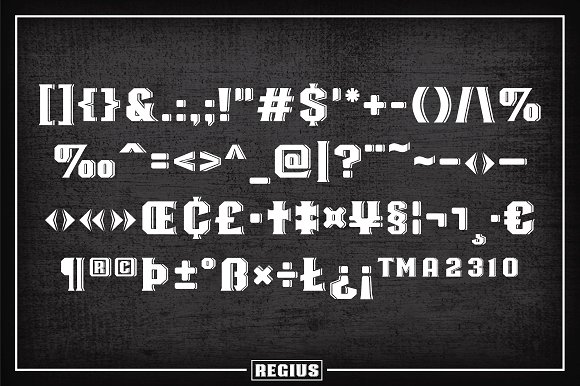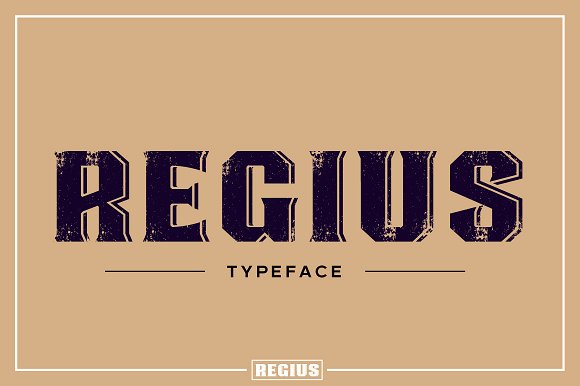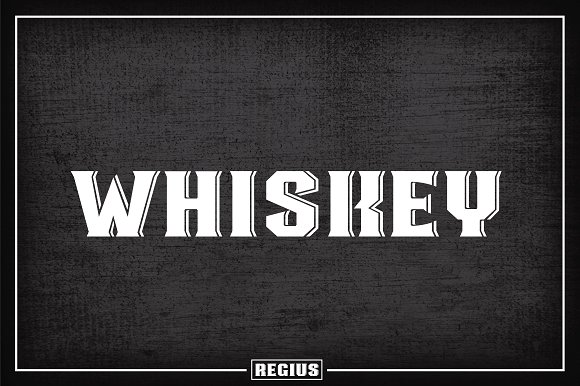
Regius was originally created as a corporate typeface for packaging-design.
It takes its inspiration from the old English pub signs This retro font boasts simple shapes and reduced ornamental structures, yet still yielding an overall artdeco influenced look and feel.